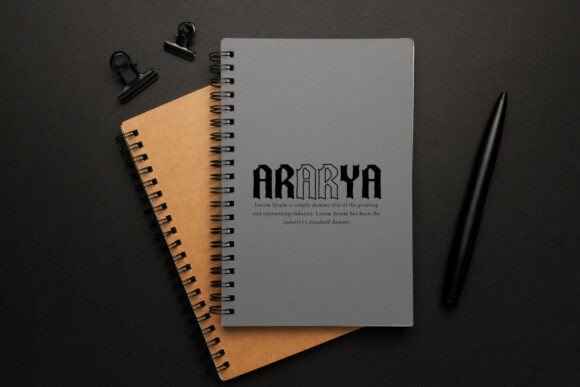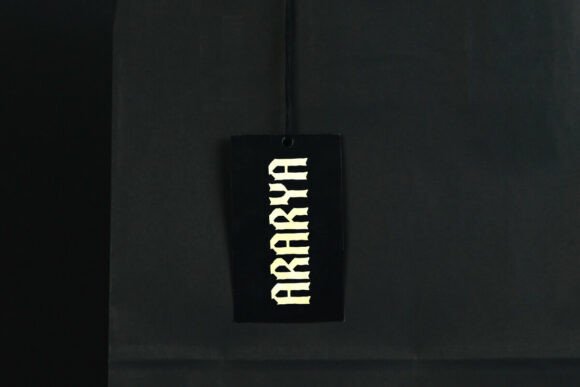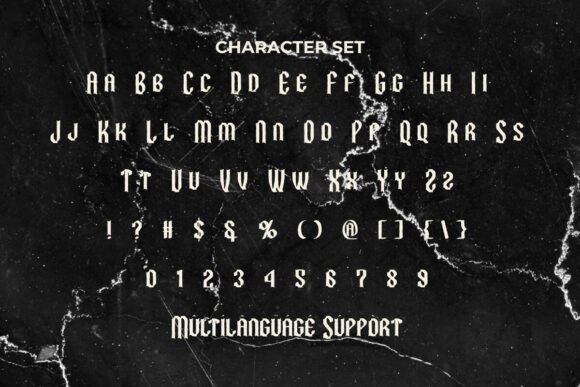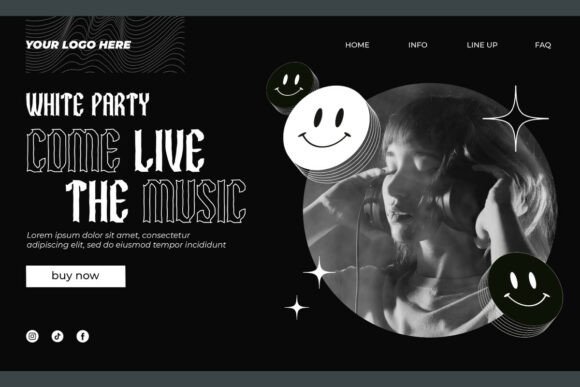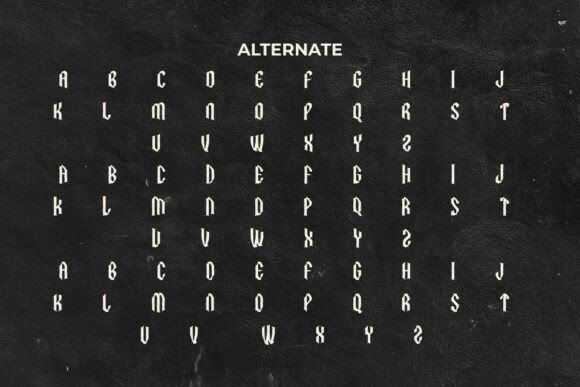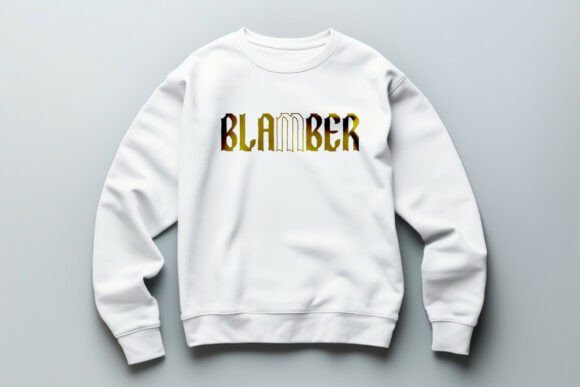
Unleash the Power of Blamber Font: A Gothic-Inspired Display Typeface
Are you looking for a font that exudes dark elegance, history, and a sense of mystery? Look no further than the Blamber Font, a blackletter, grunge, and classic display font inspired by the Gothic style. This captivating display typeface is perfect for designers and crafters who want to add a touch of power and sophistication to their designs.
Inspired by the Past, Modernized for the Future
The Blamber Font is inspired by the cover of rock ânâ roll music in the mid-1960s, with a nod to medieval manuscripts and classic fantasy lore. The font’s robust, angular characters feature distinctive, sharp serifs and a weighty presence that commands attention. The Blamber font is a simplified and modernized take on the Gothic style, with the addition of stylized alternate characters to enhance composition.
A Font for the Bold and Creative
The Blamber Font is perfect for designers and crafters who want to create bold and eye-catching designs. Its imposing, gothic-inspired letterforms make it an exceptional choice for:
- Fantasy game titles
- Heavy metal album covers
- Dark branding
- Historical movie posters
- Dramatic event invitations
Whether you’re designing a logo, a poster, or a website, the Blamber Font is sure to make a statement.
Key Features of the Blamber Font
The Blamber Font features:
- Robust, angular characters with distinctive, sharp serifs
- A weighty presence that commands attention
- Stylized alternate characters to enhance composition
- A Gothic-inspired design with a modern twist
- Support for unlimited creation to present the desired font appearance
Why Choose the Blamber Font?
The Blamber Font is an excellent choice for designers and crafters who want to add a touch of dark elegance and sophistication to their designs. Here are just a few reasons why:
- Unique and eye-catching design: The Blamber Font’s Gothic-inspired design is sure to stand out in any design.
- Versatile: The font is perfect for a wide range of design projects, from fantasy game titles to dark branding.
- Easy to use: The font features stylized alternate characters to enhance composition, making it easy to create beautiful designs.
- High-quality: The Blamber Font is crafted with attention to detail, ensuring a high-quality design that will impress.
The Blamber Font is a powerful and elegant display typeface that is perfect for designers and crafters who want to add a touch of dark elegance and sophistication to their designs. Its Gothic-inspired design, robust characters, and stylized alternate characters make it an exceptional choice for a wide range of design projects. Whether you’re designing a logo, a poster, or a website, the Blamber Font is sure to make a statement. So why wait? Unleash the power of the Blamber Font today and take your designs to the next level.